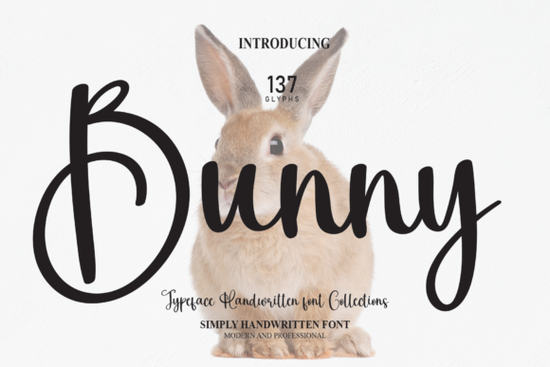
If you're looking for a script font that feels fashionable yet delicate, Bunny Font is worth a closer look. It’s designed to add a beautiful hand-lettered touch without being too loud. Whether you’re crafting a logo, working on a branding project, or adding a watermark to your photos, Bunny Font brings that soft, feminine script taste many projects need.
What makes Bunny Font different from other script fonts?
Many script fonts lean either too formal (think wedding calligraphy) or too casual (like a quick brush stroke). Bunny Font sits right in the middle. Its strokes are smooth and flowing, but the letters keep a clean, readable shape. This balance makes it work for both digital and print projects. The font includes uppercase and lowercase characters, plus punctuation and numbers, so you won’t run into missing glyphs mid-project.
Another thing designers appreciate is the consistent baseline. Some script fonts have wildly uneven letter heights that make alignment a headache. Bunny Font keeps each character sitting nicely on the line, which saves time when you’re laying out a logo or a label.
Is Bunny Font good for branding and logos?
Absolutely. For small businesses and print-on-demand sellers, a logo needs to be both stylish and legible at small sizes. Bunny Font works well because its curves aren’t overly complicated. I’ve seen it used in beauty brand logos, boutique clothing labels, and even coffee shop signage. The font pairs nicely with sans-serif fonts for a modern look, which is a common request from clients.
If you’re working on a monogram or watermark, the delicate nature of Bunny Font adds a personal, handcrafted feel. Many photographers use script fonts for watermarks because they look elegant without distracting from the image. Just be sure to adjust the spacing – a little extra letter-spacing can make it even more professional.
Can I use Bunny Font for special events and invitations?
Yes. Wedding invitations, birthday party flyers, and holiday cards all benefit from a script that feels personal. Bunny Font is refined enough for formal events but playful enough for casual gatherings. It also works well for book covers or journal titles where you want a handwritten vibe without sacrificing readability.
For print-on-demand products like mugs, tote bags, or wall art, this font gives a charming, approachable feel. Customers often look for that “handmade” aesthetic, and Bunny Font delivers it without needing actual handwriting skills.
What about craft projects and DIY designs?
Does Bunny Font work well for digital use?
For print-on-demand sellers, Bunny Font can be used for t-shirt designs as long as the text is large enough. Because it’s a script, small sizes on apparel might lose detail – test a sample before mass production. If you need a bolder script for larger statements, Glowing Font offers a different style with more energy.
Quick tip: When using Bunny Font for branding, pair it with a clean sans-serif font (like Montserrat or Open Sans) and keep the script text short – one or two words work best. For longer phrases, use a simple serif or sans to avoid fatigue.